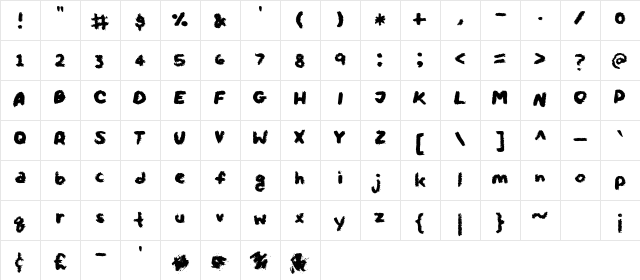
CrayonAndTheWolf Regular
Design Context for CrayonAndTheWolf Typeface
CrayonAndTheWolf is a composed and adaptable typeface that performs quietly and consistently across a wide range of design contexts.